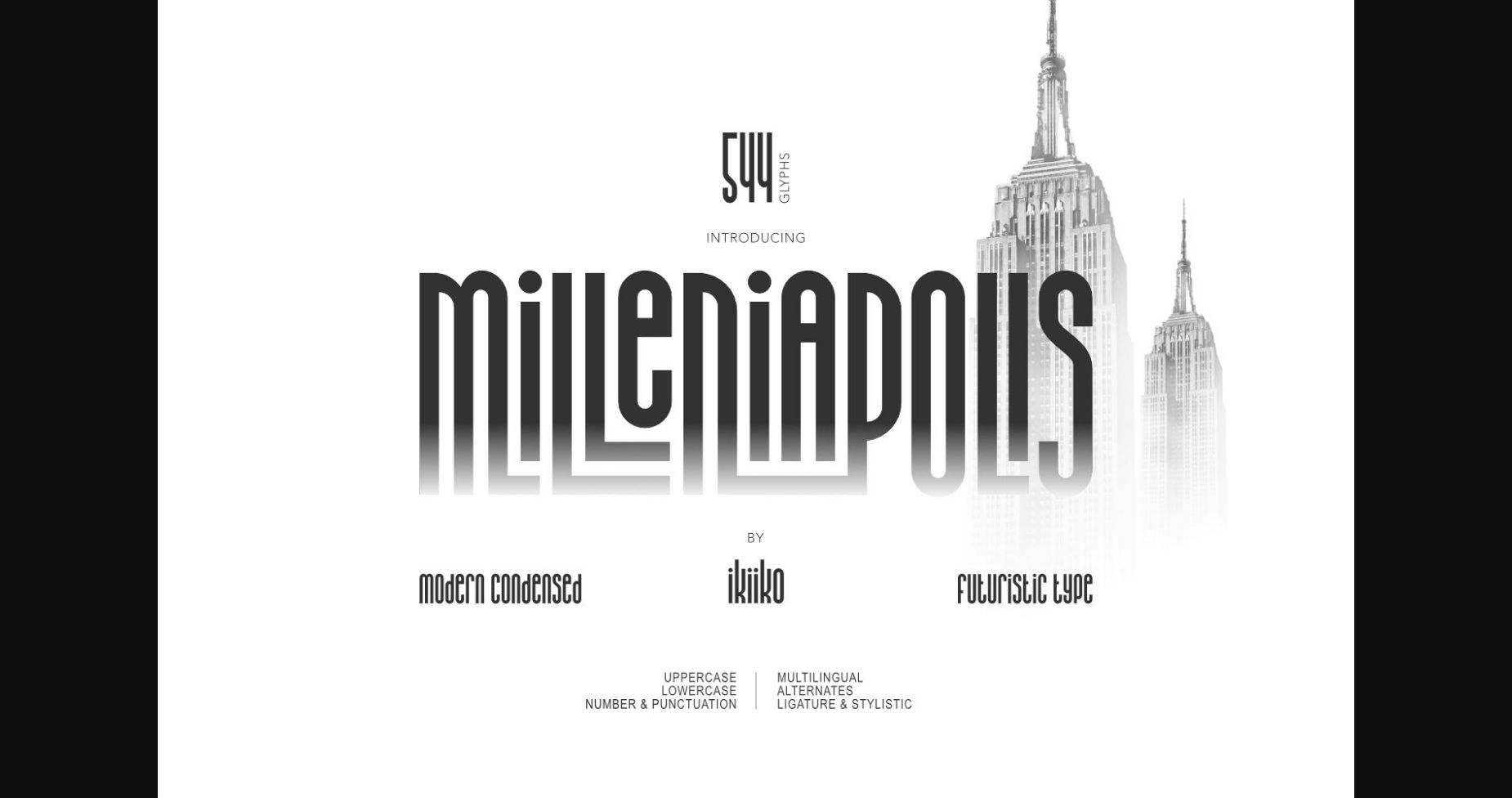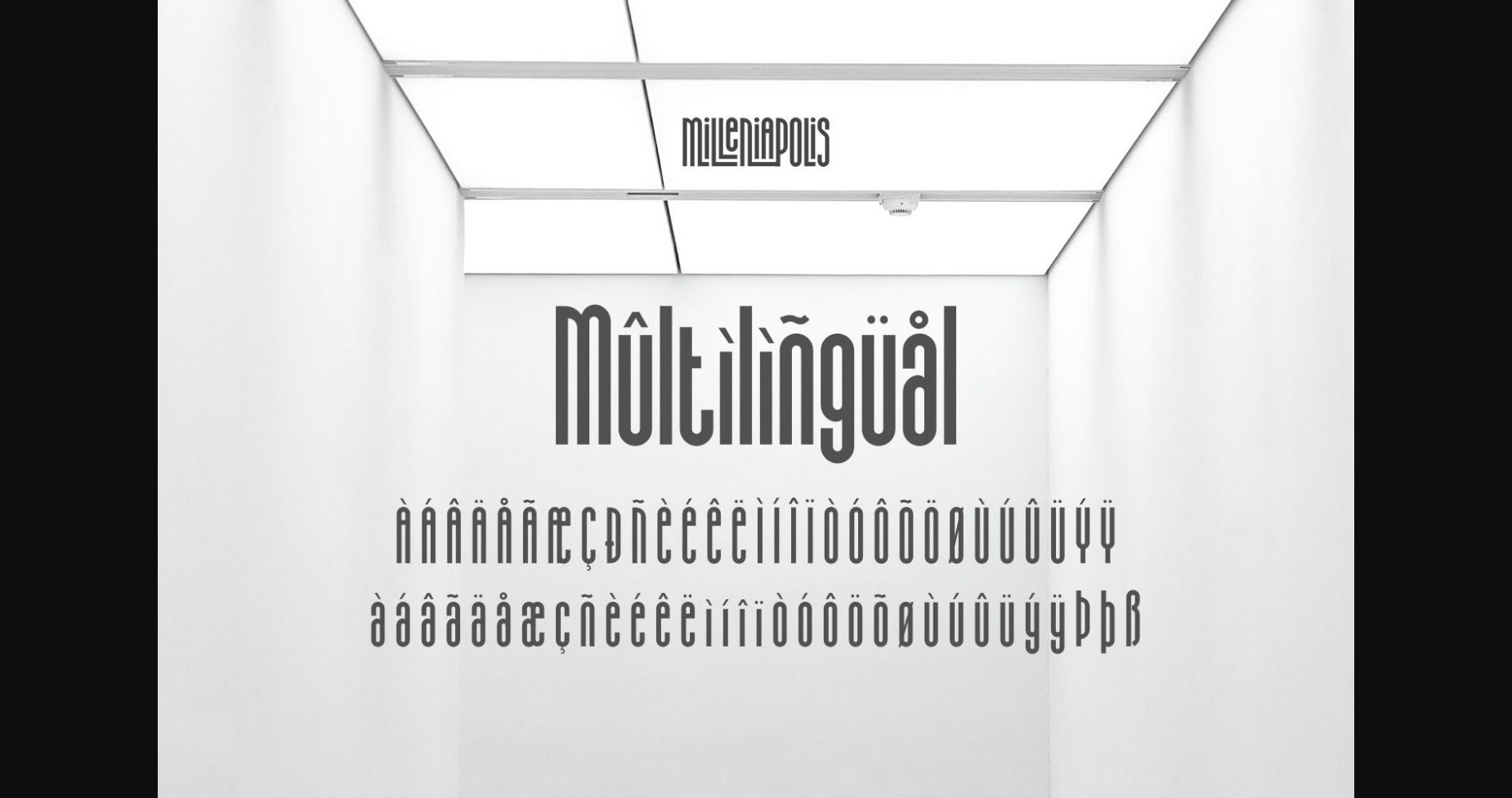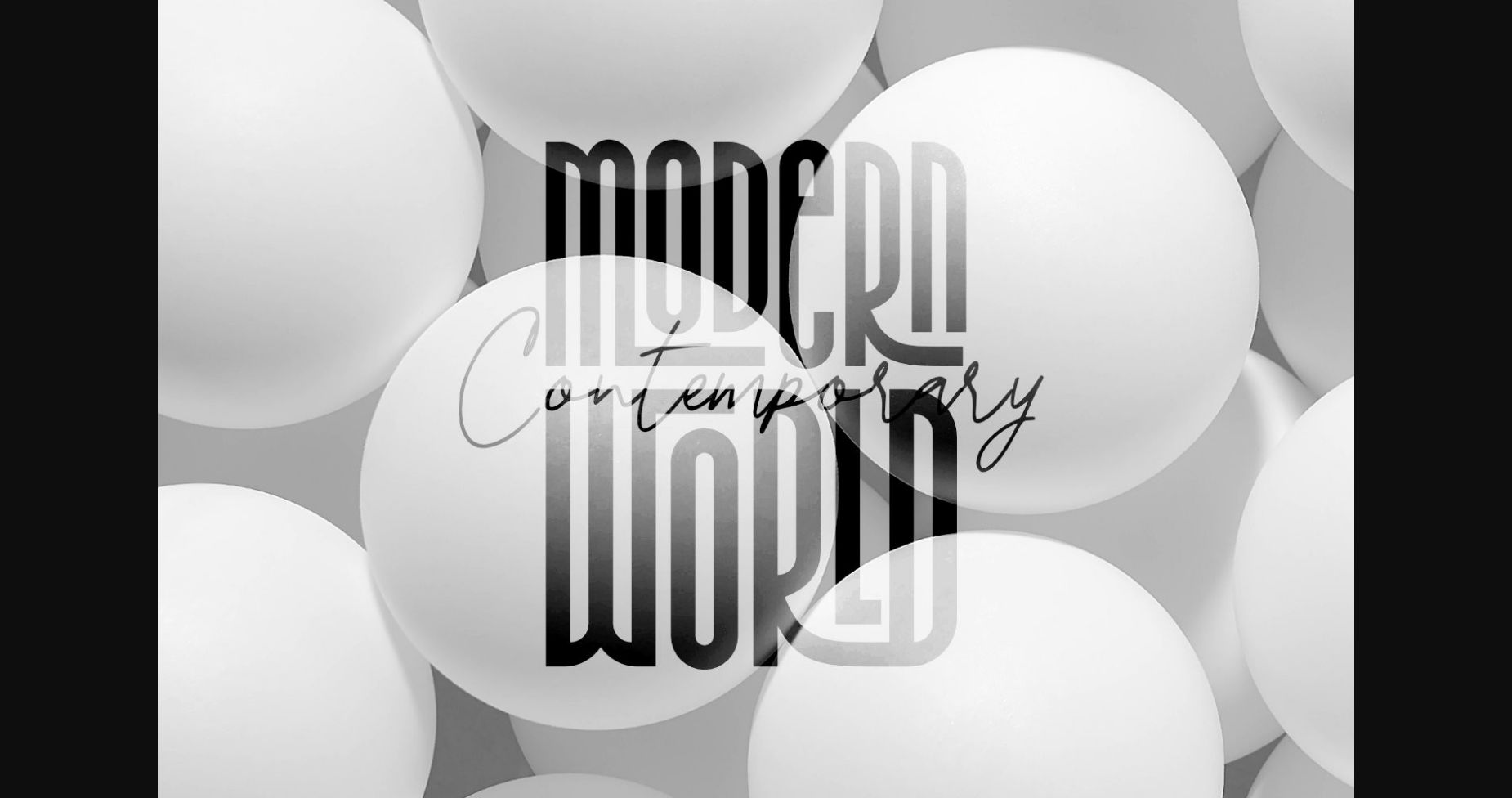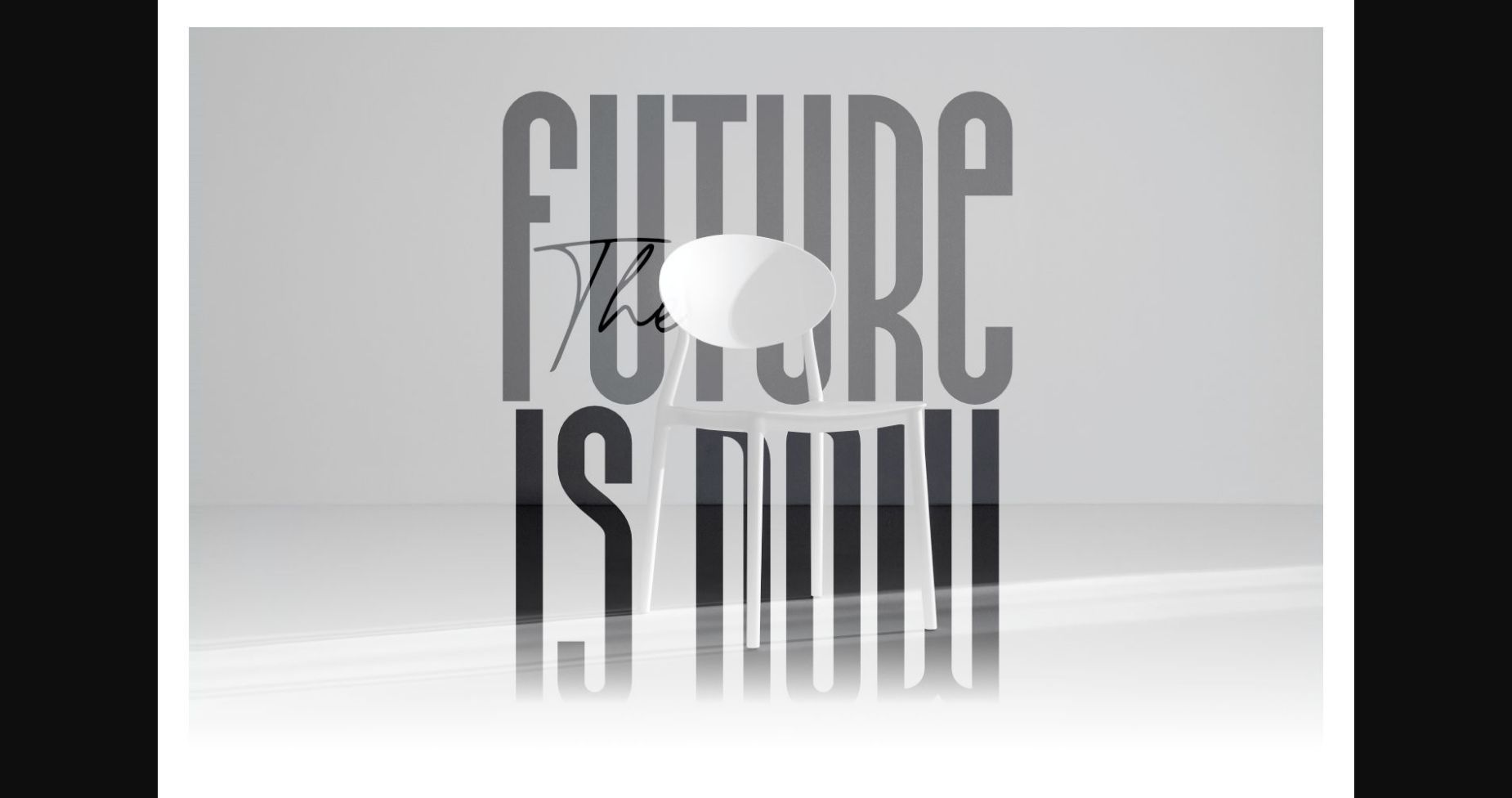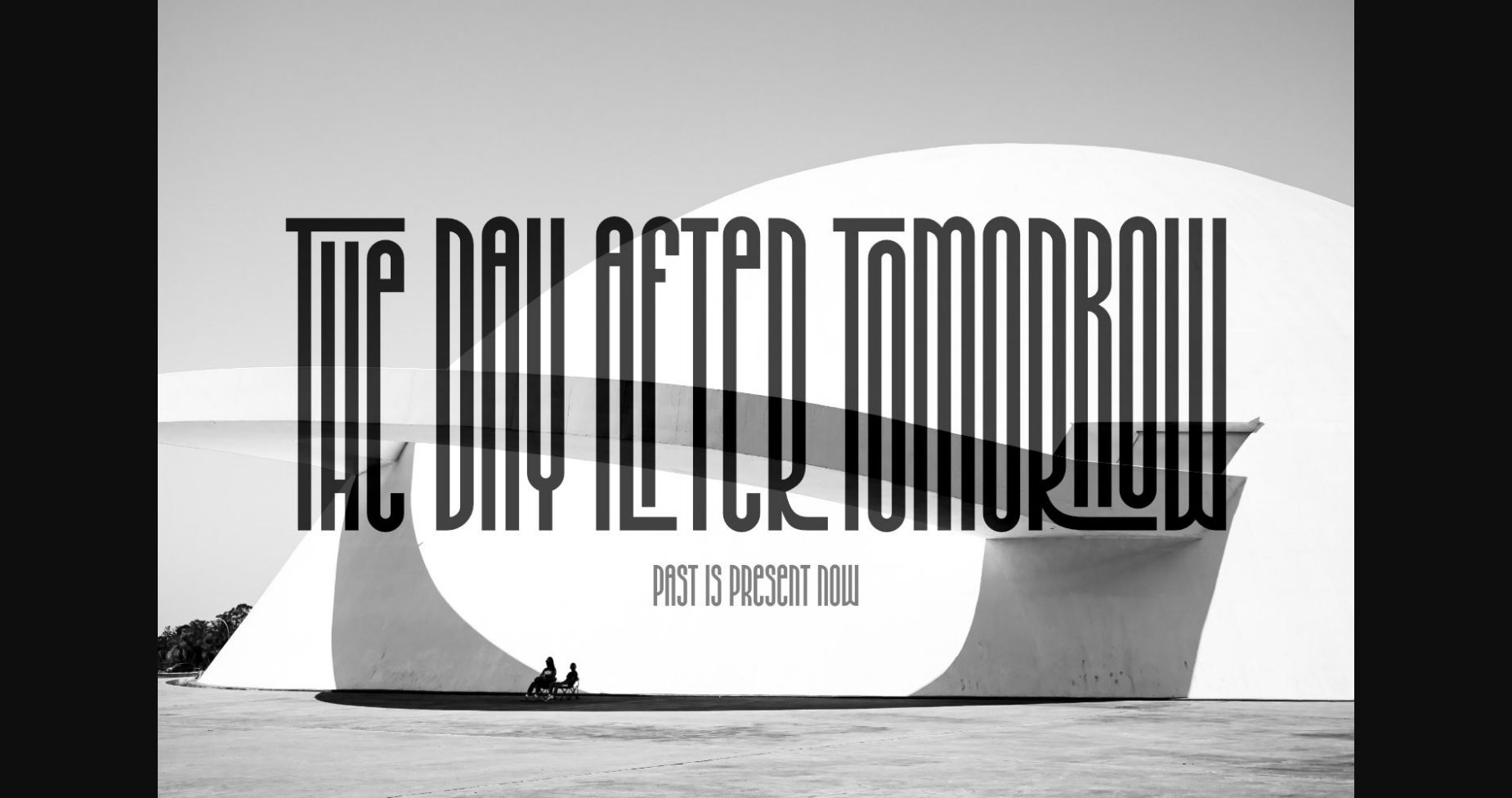
About Milleniapolis Font
Introducing Milleniapolis – Futuristic Type Sans Serif Font
Milleniapolis is a condensed typeface with a simple and playable font. Thin and tall font characters make it easy to adjust and fun to explore different shapes and layouts. This typeface is perfect for a brand logo, fashion stuff, clean design, magazine cover, poster & flyer, or simply as a stylish text overlay to any background image.